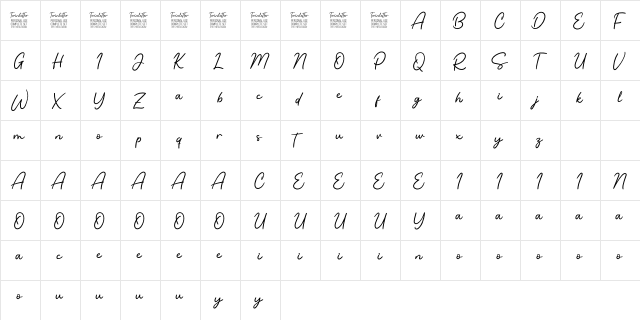
Sodiqin PERSONAL USE
Design Context for Sodiqin Typeface
Sodiqin is a composed and adaptable typeface that performs quietly and consistently across a wide range of design contexts.